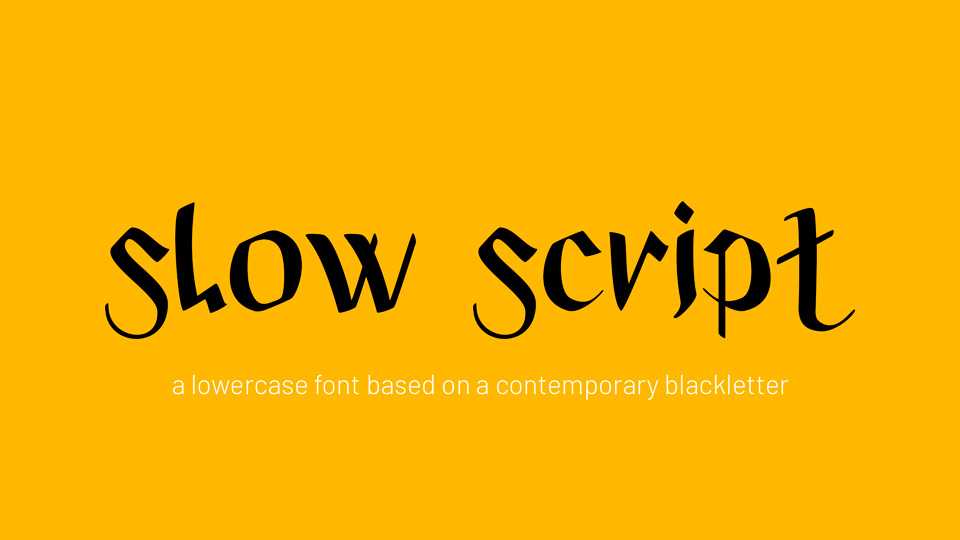
Download Slow Script font, a handwritten lowercase typeface in one weight based on the idea of a contemporary blackletter. Slow Script is perfect for posters, prints and craft works.
Designer: Rory King